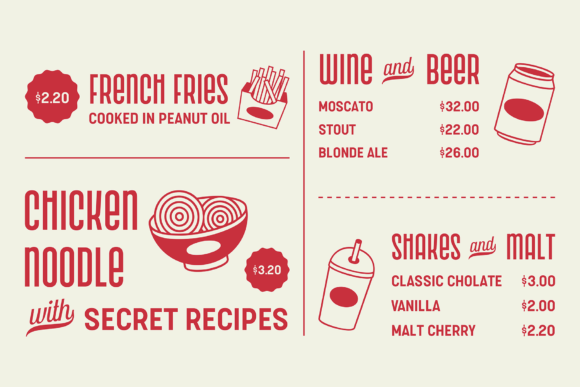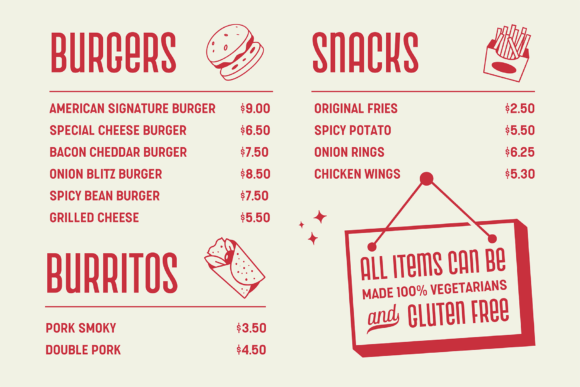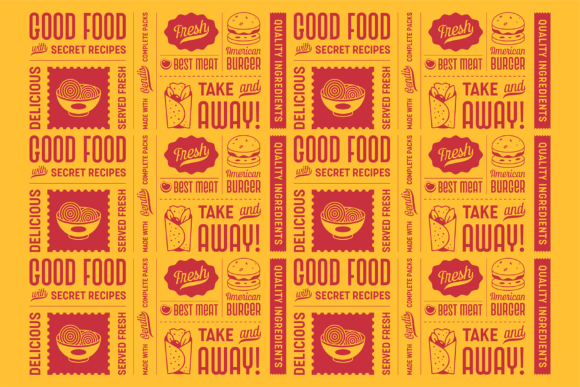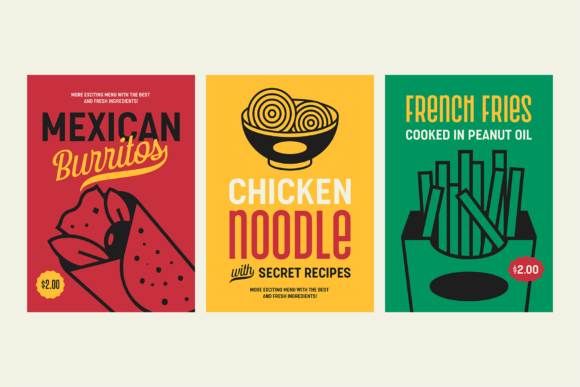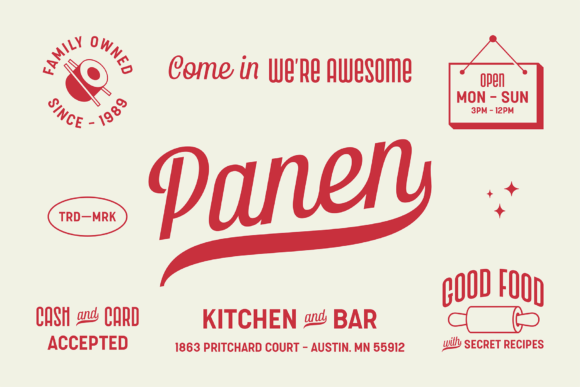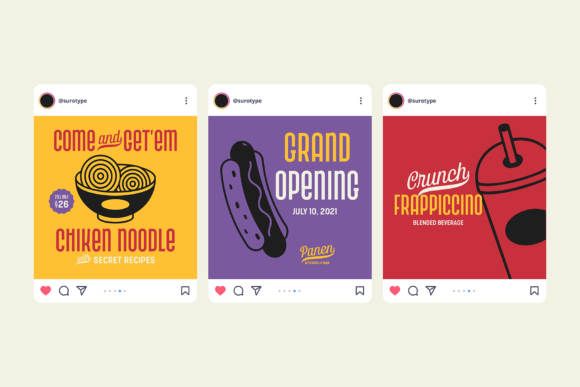
Introduction to Gendis Font
Gendis is a lovely looking, vintage styled duo font (display and handwritten).
This font is neatly crafted and highly detailed Whatever the topic, this font will be a wonderful asset to your font library, as it has the potential to enhance any creation.
Gendis Font offers exceptional quality and versatility, making it a valuable addition to your design toolkit. Whether you’re creating for personal projects or commercial use, Gendis Font delivers professional results.